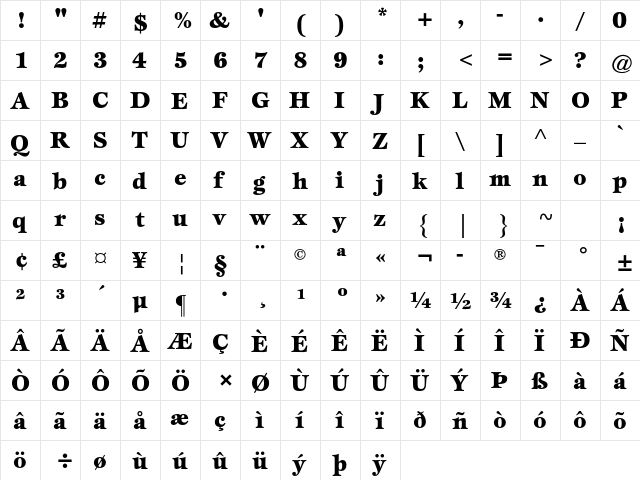
ITC Esprit Std Black
| Designer | Jovica Veljovic |
Design Context for ITC Esprit Std Typeface
ITC Esprit Std is a composed and adaptable typeface that performs quietly and consistently across a wide range of design contexts.